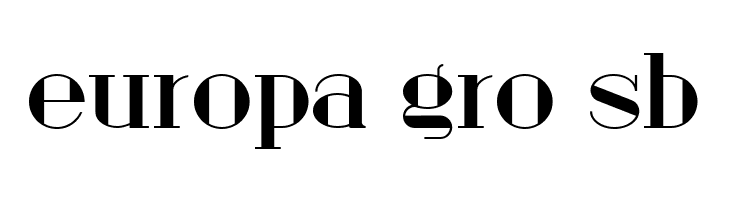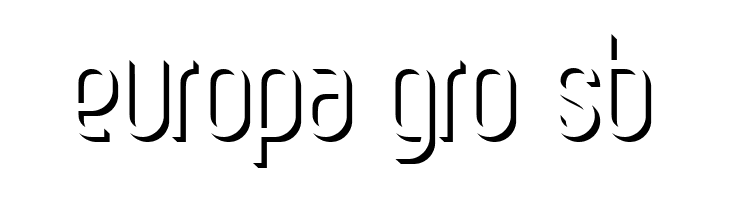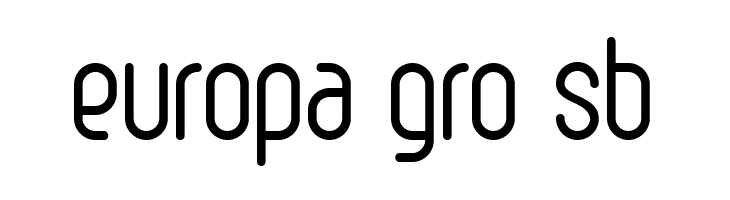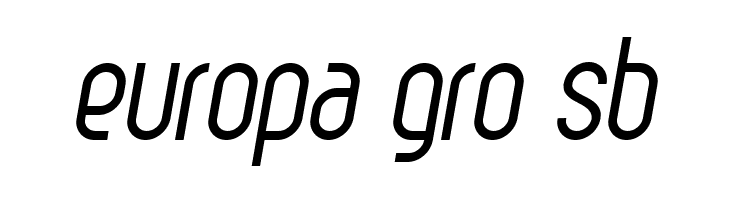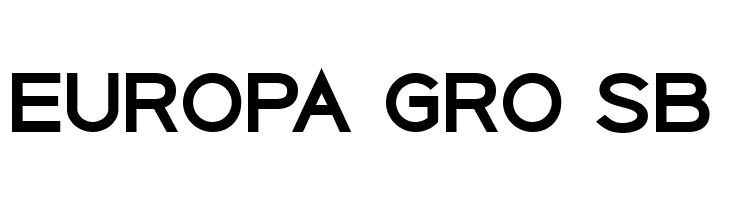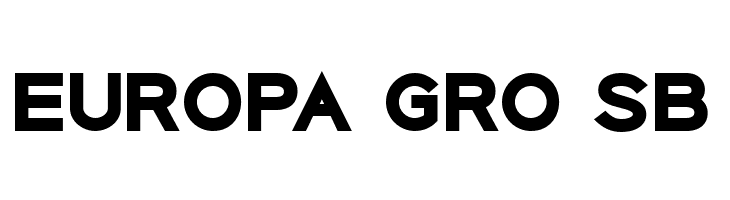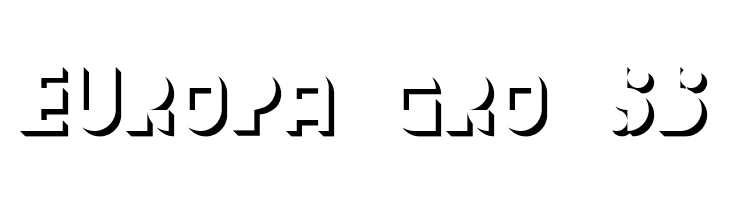
A bold, modern sans-serif font with a clean and impactful design.
A high-contrast, elegant font with a modern and sophisticated style.
A modern, shadowed font with tall, narrow characters and a sleek design.
A modern, rounded font with clean lines and a friendly appearance.
A modern, geometric font with clean, rounded edges and a condensed style.
A sleek, modern italic font with elongated, narrow characters and high contrast.
A modern, geometric sans-serif font with uniform stroke widths and high legibility.
A bold, modern sans-serif font with clean lines and geometric shapes.
A bold, italicized font with geometric shapes and clean lines.
A bold, geometric font with a unique shadow effect for a 3D appearance.